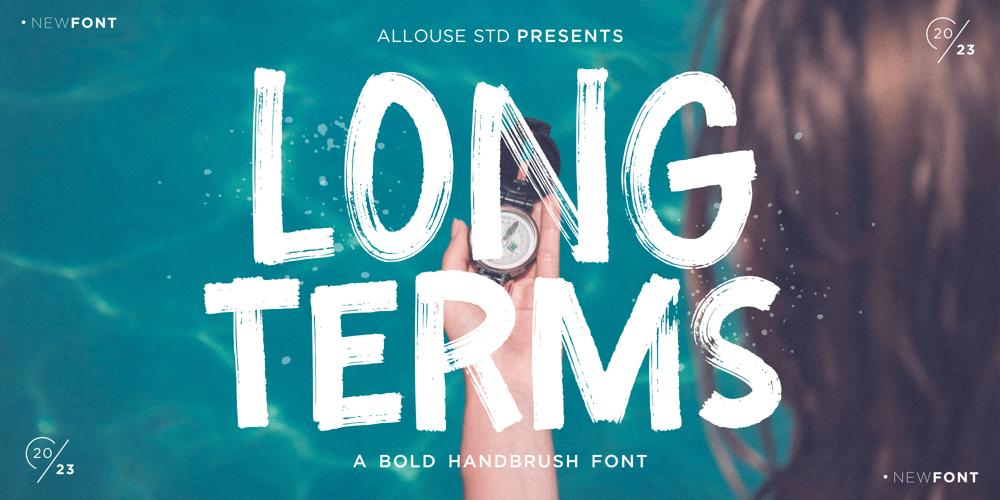
Longterms
Longterms font
Longterms Font Family was designed by Fachrizal Yusuf and published by Allouse Studio. Longterms contains 1 styles and family package options. Proudly Presenting, Longterms A Handbrushed Display Font.Longterms is perfect for any titles, logo, product packaging, branding project, megazine, social media, wedding, or just used to express words above the background.Longterms also come with Multi-Lingual Support.Enjoy the font, feel free to comment or feedback, send me PM or email. Thank You!